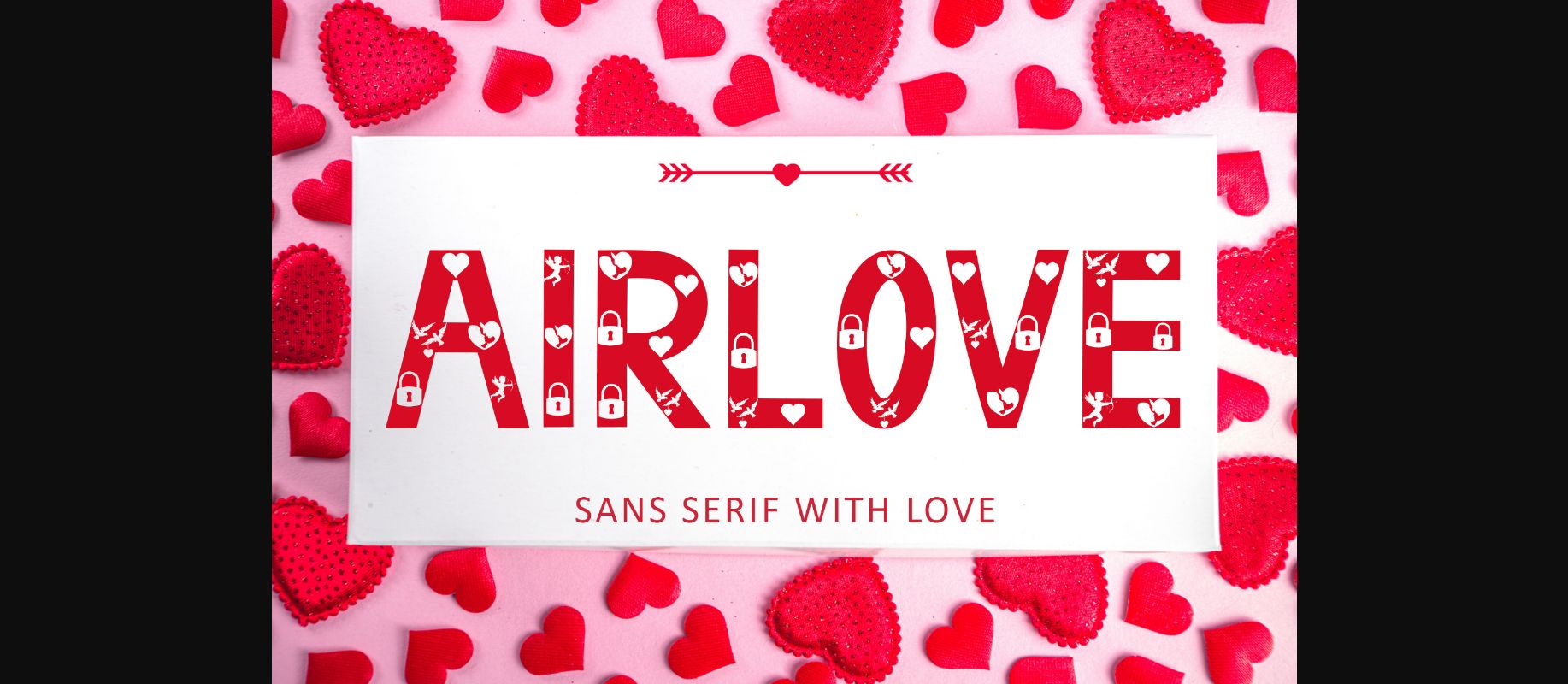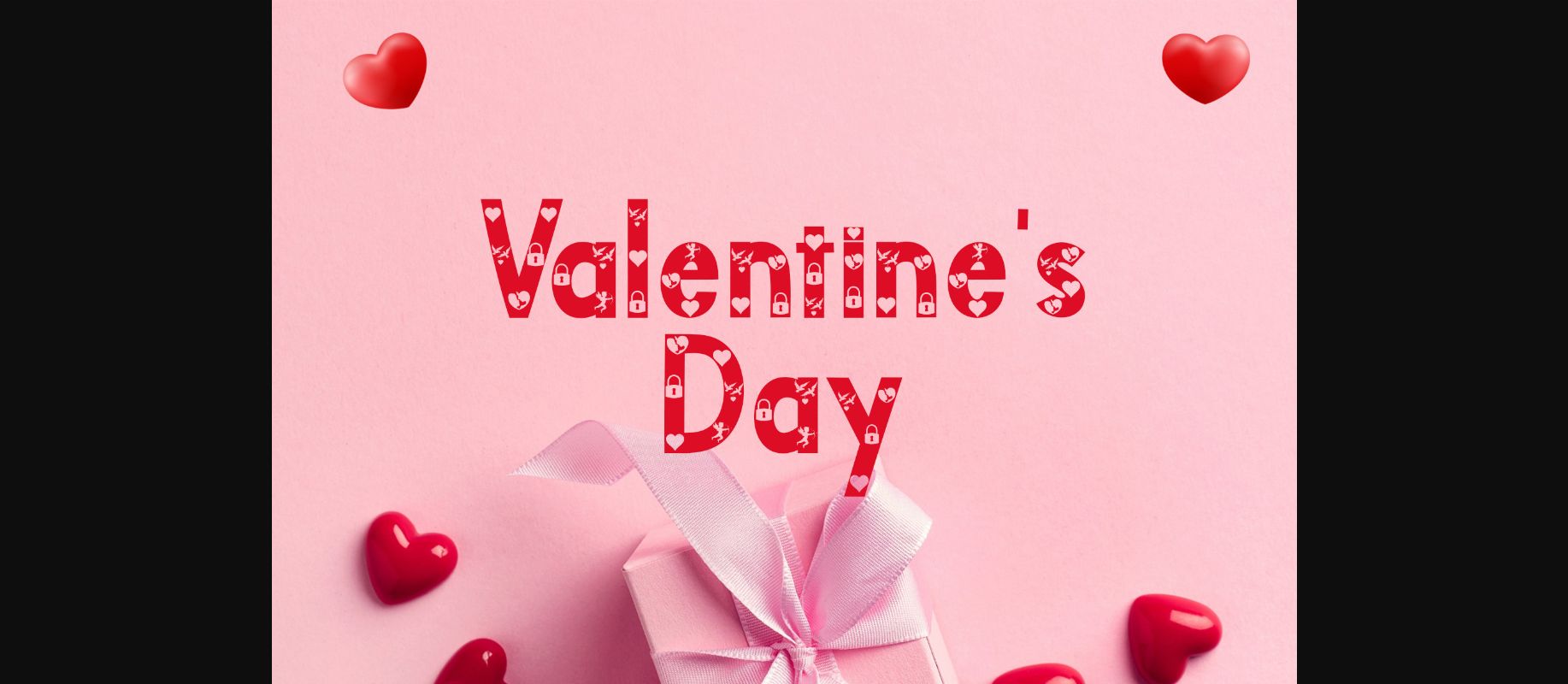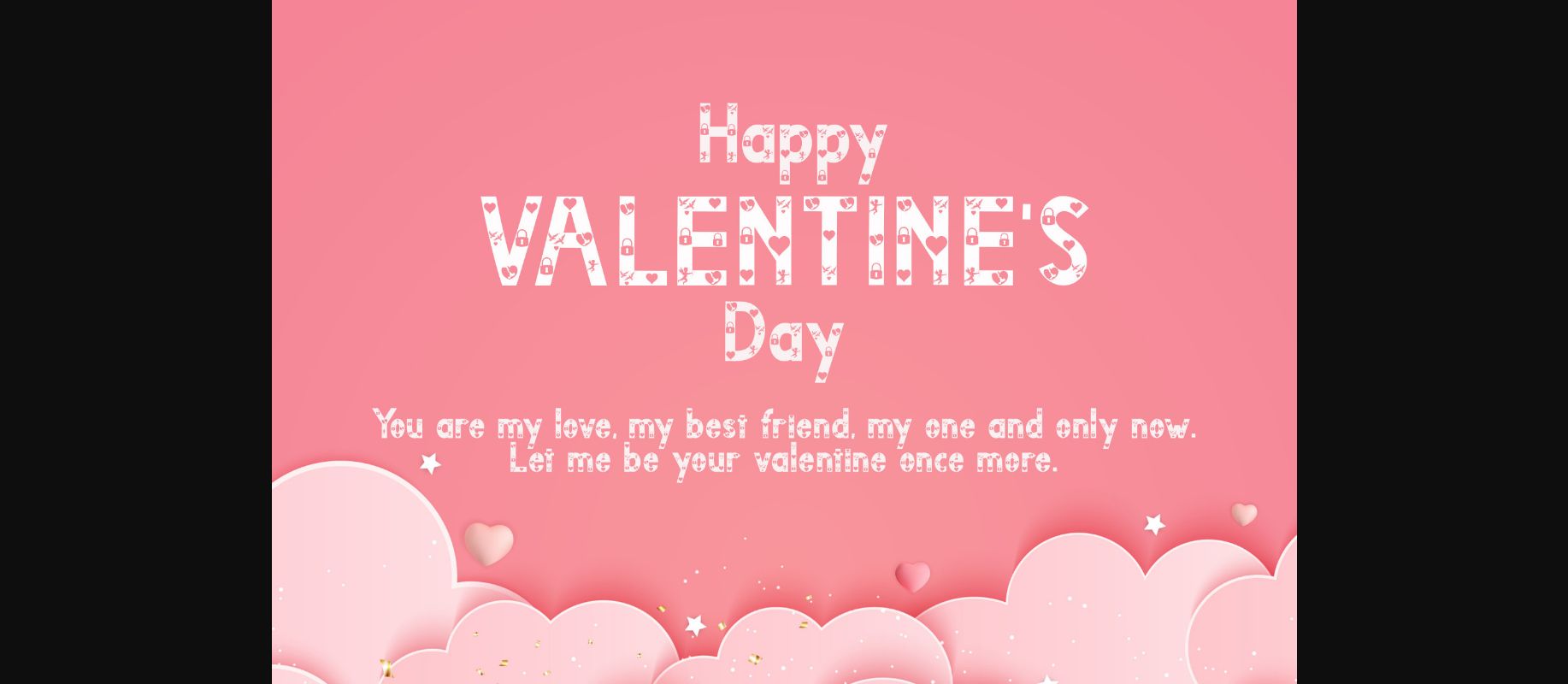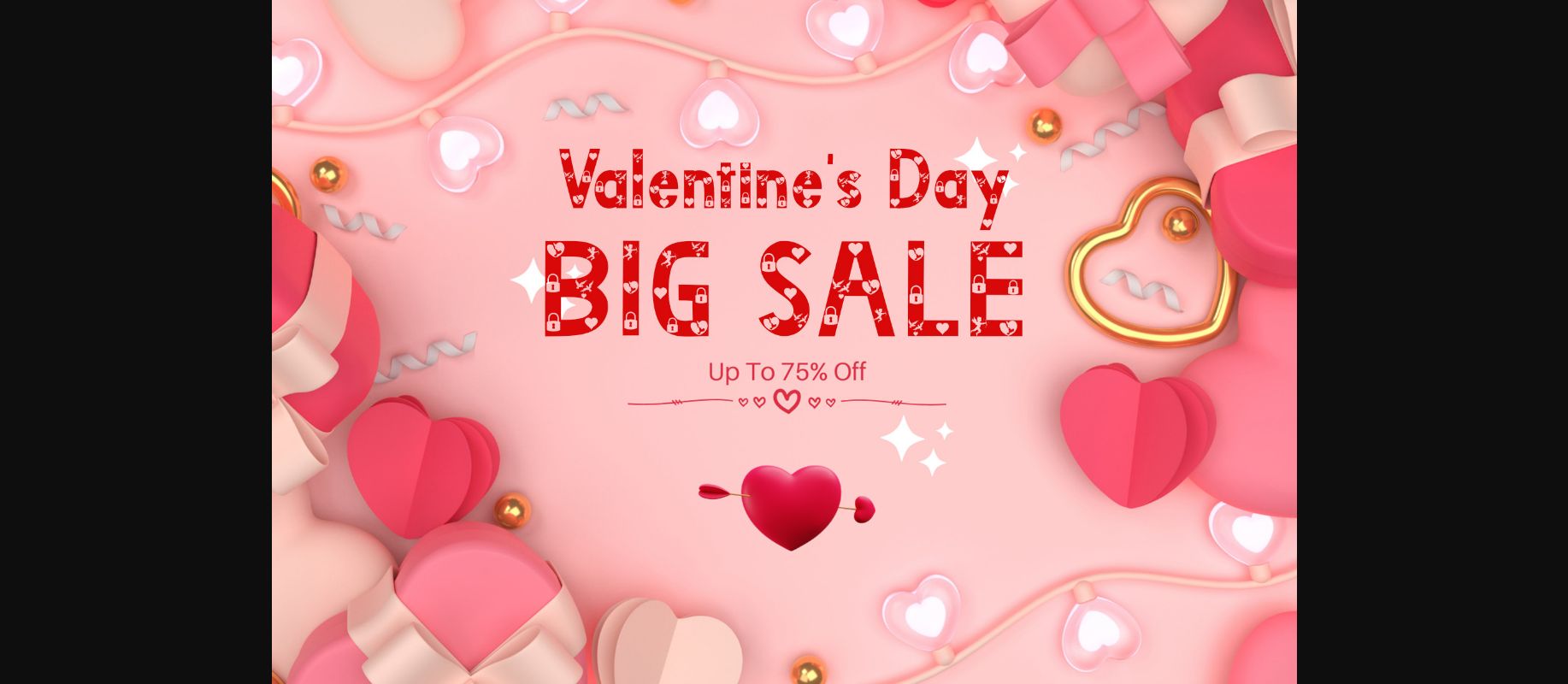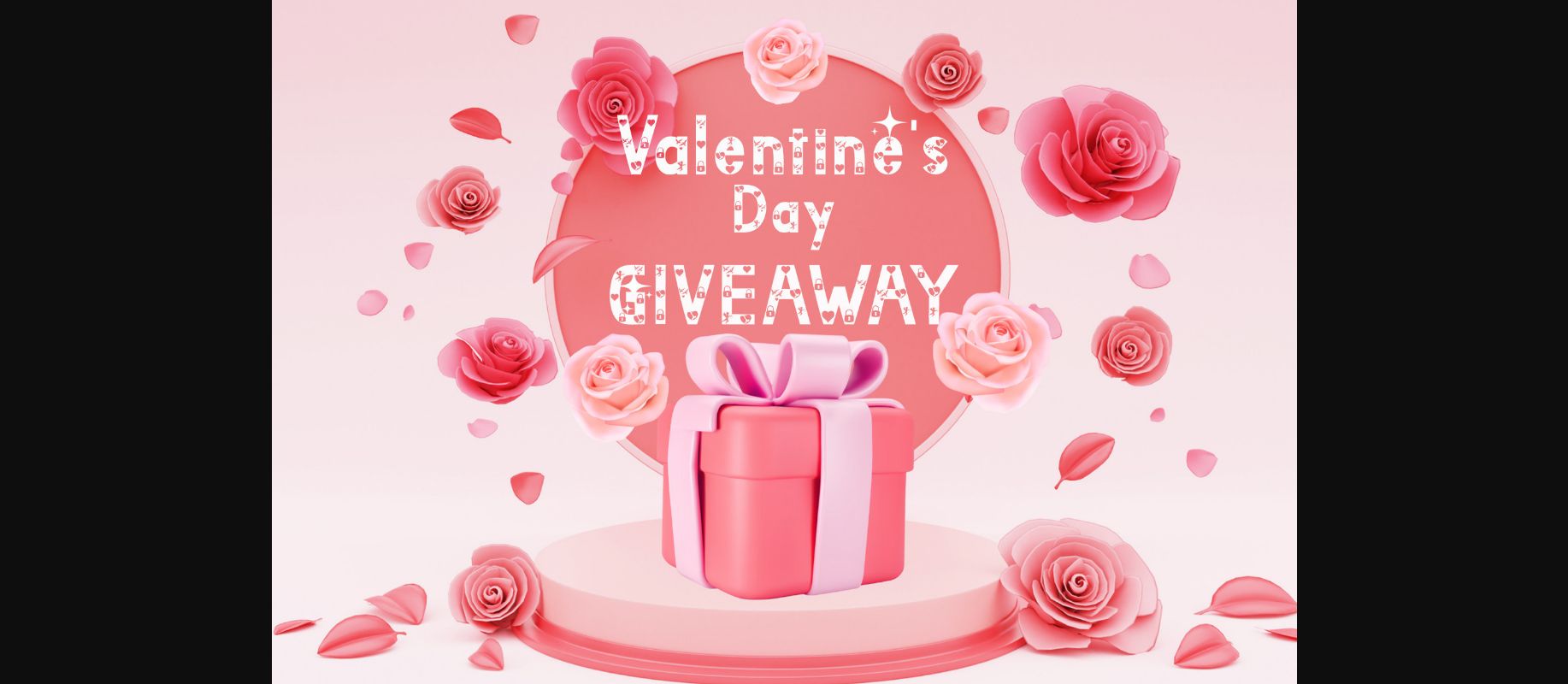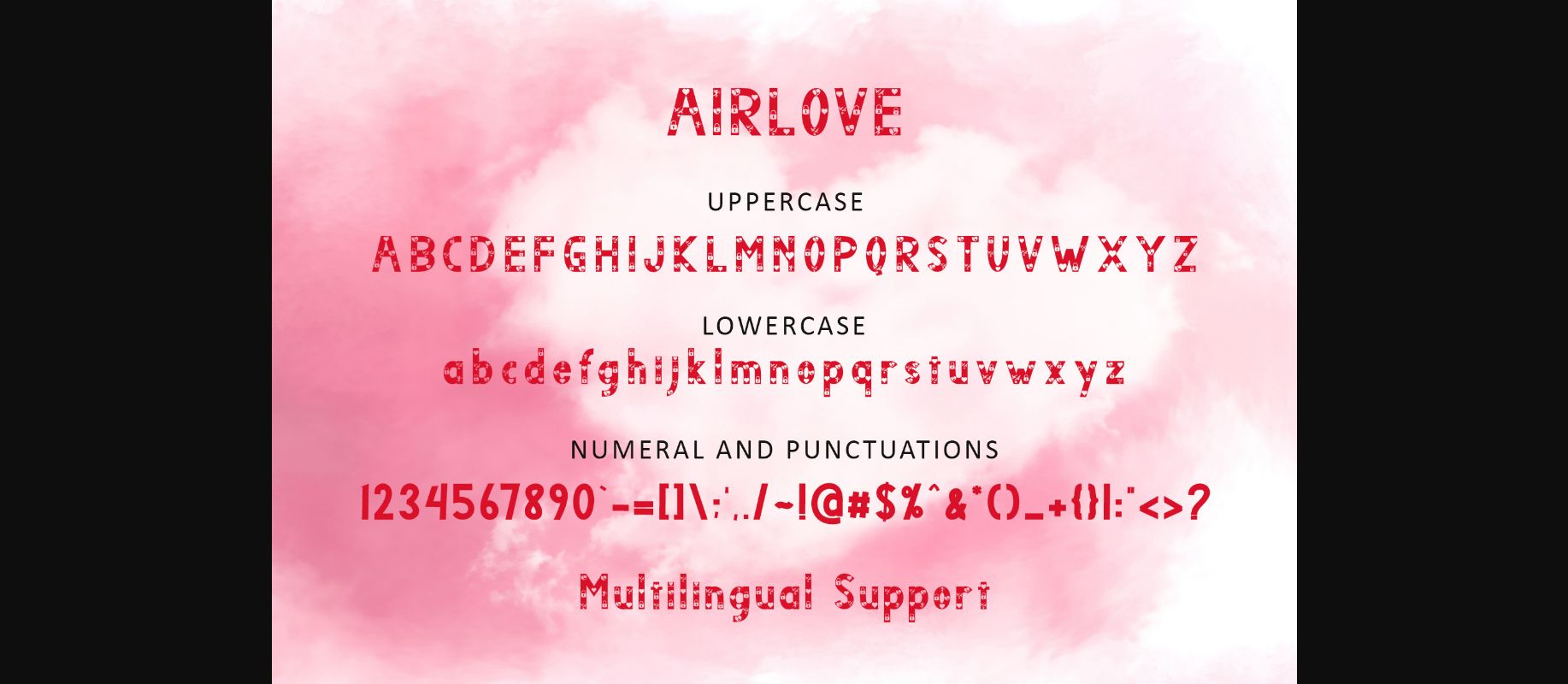
Airlove Font
About Airlove Font
“Airlove” is a sans serif combined with a heart, a padlock, a pair of birds, and a couple of lovers to generate an outstandingly romantic decorative font. This typeface is chic and elegant and can be used for weddings, photography, valentine’s, invitations, product promotions, and others.